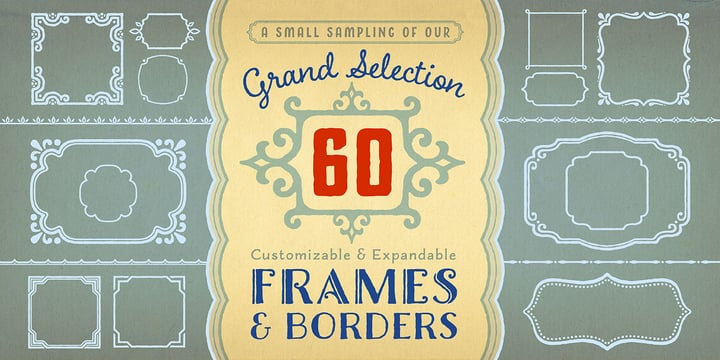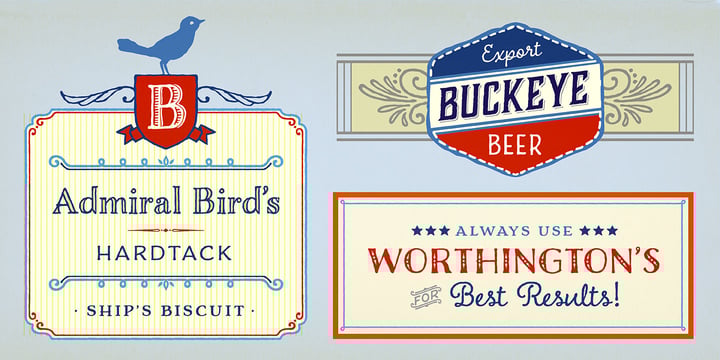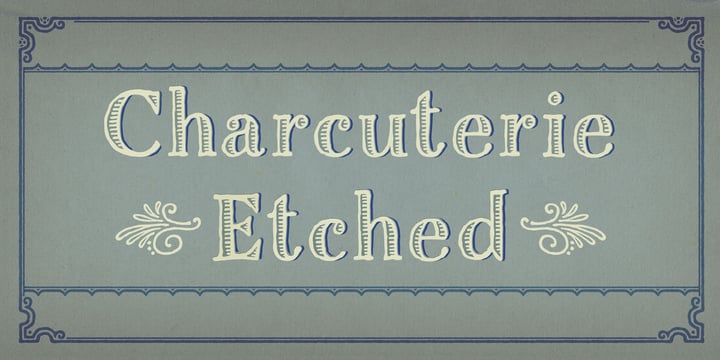
Charcuterie
Charcuterie by Laura Worthington
Charcuterie Font Family was designed by Laura Worthington and published by Laura Worthington. Charcuterie contains 24 styles and family package options. More about this family
About Charcuterie Font Family
Charcuterie is a collection of ten distinct yet related typefaces, and three ornamental typefaces. Used individually or blended with other fonts from this large family, elements of Charcuterie are well suited for headlines, titling, logos, display, packaging, signage, or advertising. The entire collection lends itself to experimentation, acting as a complete and complex toolbox, enabling you to work in extraordinarily varied ways. Each Charcuterie typeface has different, yet complementary features. Engraved features 135 swash alternates and Cursive boasts 275. Frames offers a broad and endless approach to creating frames of any proportion and style. Catchwords features nine different styles for a total of 82 glyphs. 100 Ornaments include a vast array of arrows, brackets, rules, icons, ribbons and more. See what’s included! http://bit.ly/2c5OzoK *NOTE* Basic versions DO NOT include swashes, alternates or ornaments These fonts have been specially coded for access of all the swashes, alternates and ornaments without the need for professional design software! Info and instructions here: http://lauraworthingtontype.com/faqs/
About Laura Worthington
A graphic designer since 1997, my focus has moved, through serendipity and lifelong fascination, to type design by implementing the craft of hand lettering. I also create a diverse selection of illustrative work. My love of letters began when I was nine years old. I learned italic printing in elementary school, I pursued it further, teaching myself different calligraphic styles from any book I could find on the subject. In college, a professor pointed me to pages in a design book's lettering section, and I swooned. Such an artistic and spontaneous task, with pen or brush pen or steel nib pen in hand, yet so controlled, as each letter perfectly approaches or intertwines with the next, in a flowing precision. An ageless craft yet, in the right hands, as effective in identity or messaging as the most modern method, as it subliminally adds a strongly human, and thus personal, element. I knew to my core that I'd found my lifework. In September of 2010, I transitioned from freelance graphic design to typeface design. The intent of my typefaces is to create something unique and well designed, filling a niche in the vast marketplace of fonts, and offering several design possibilities through the addition of alternates, swashes and ornaments. I love creating letters and I aim to demonstrate that passion through my designs. My hope is that my typefaces will assist you in your creative endeavors. Visit my website at www.LauraWorthingtonType.com to view more of my work, or follow me on Twitter: @L_Worthington